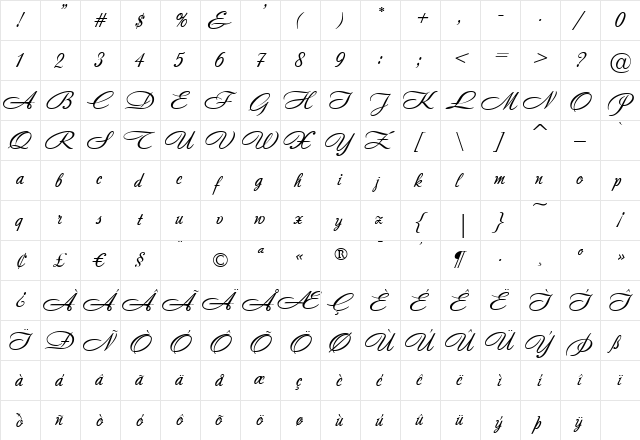
AndantinoJF Regular
Design Context for AndantinoJF Typeface
AndantinoJF is a composed and adaptable typeface that performs quietly and consistently across a wide range of design contexts.